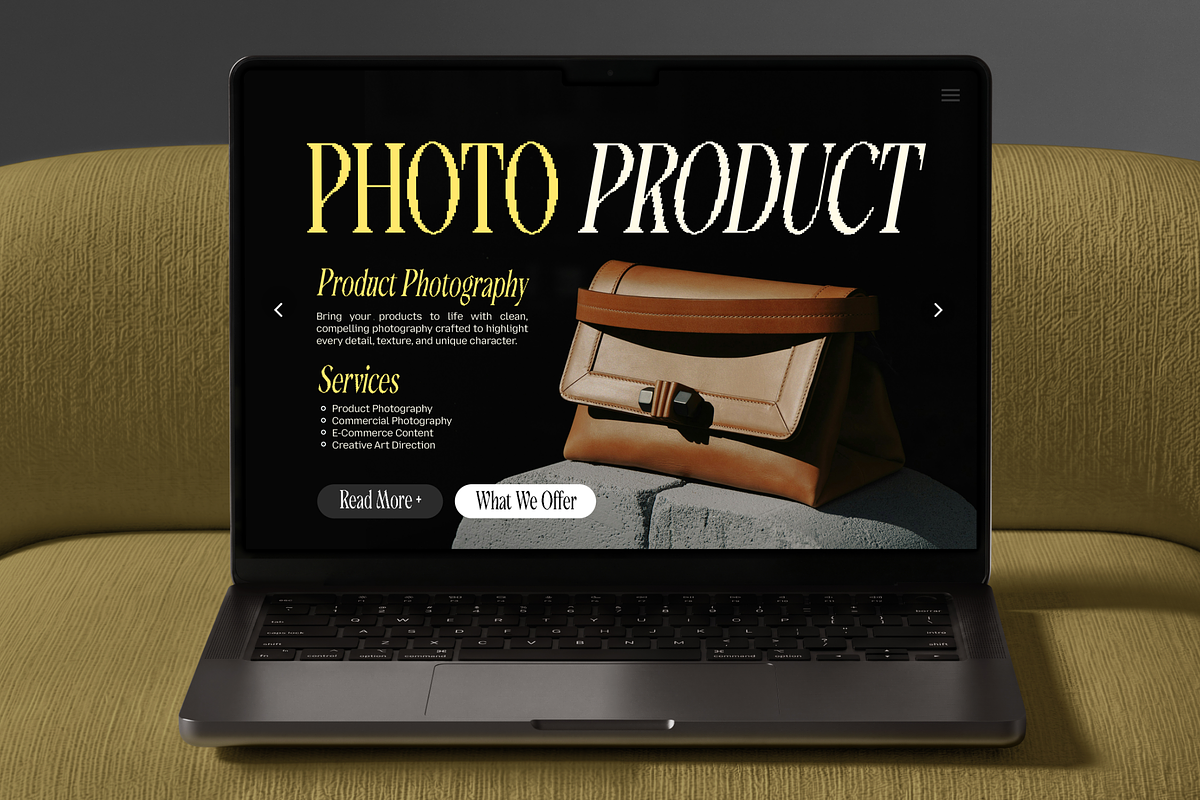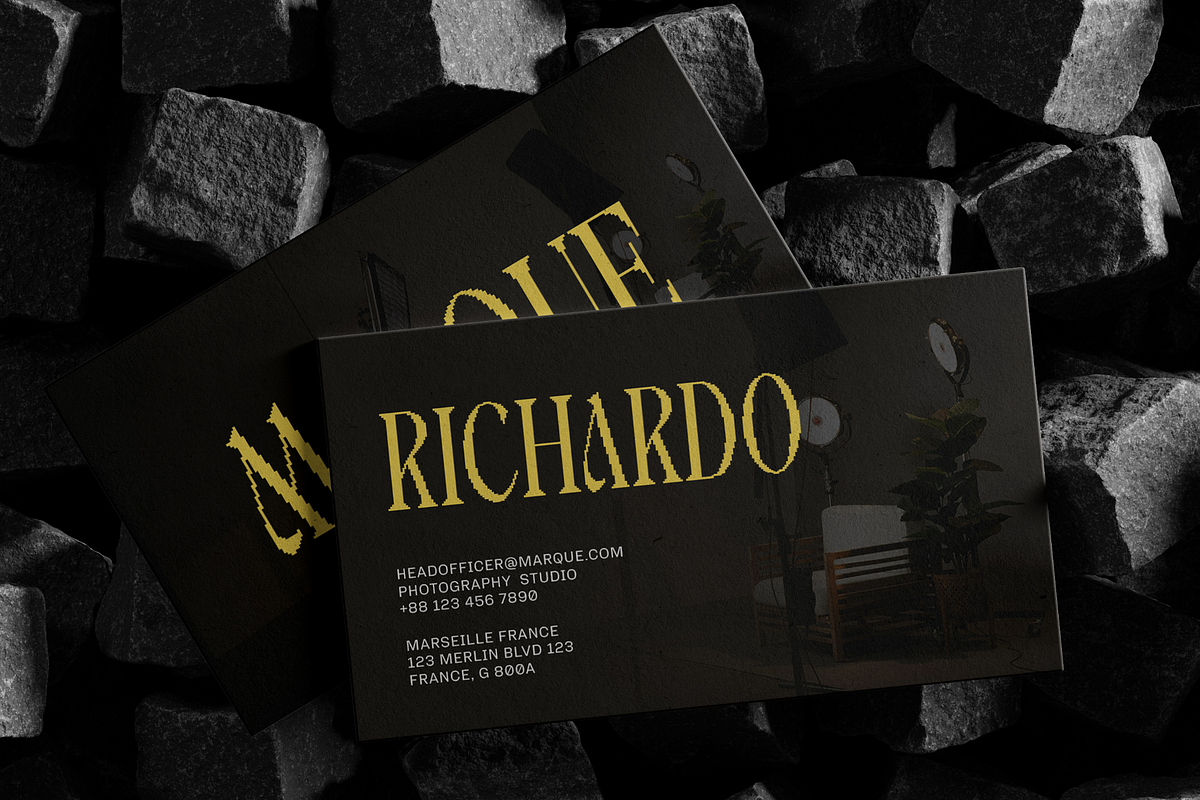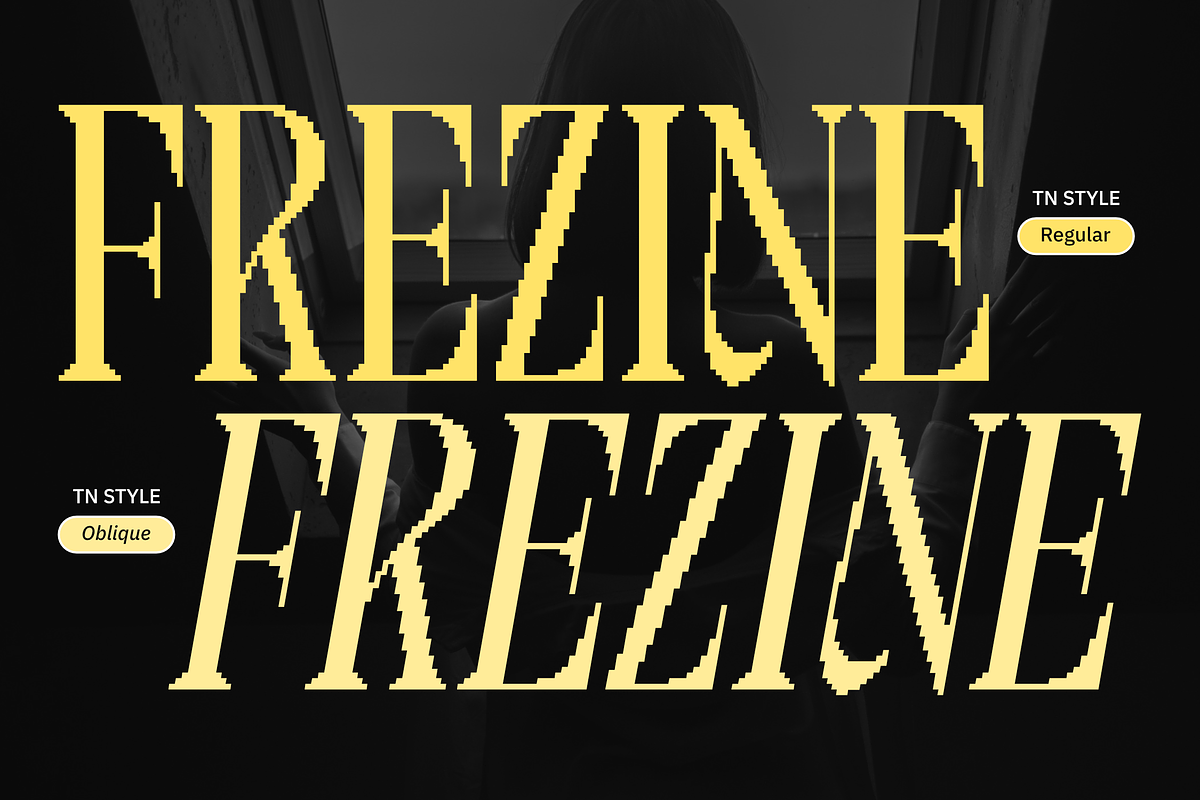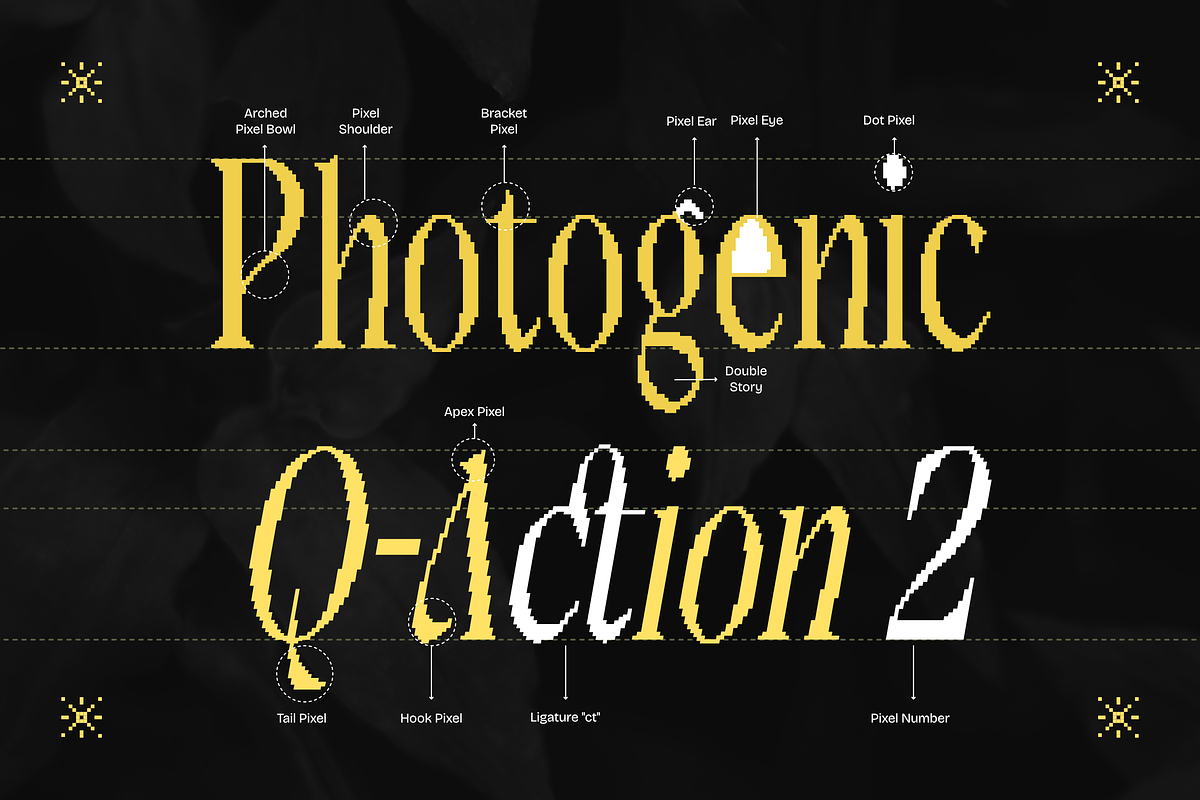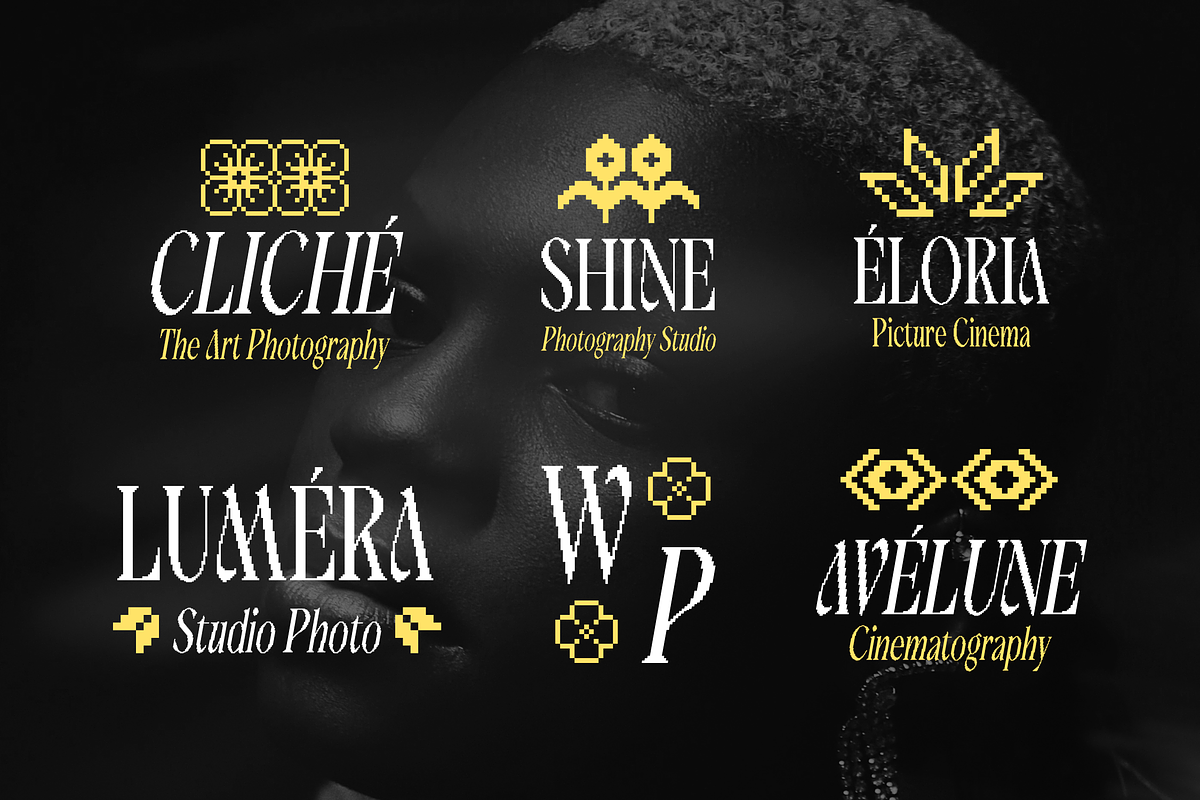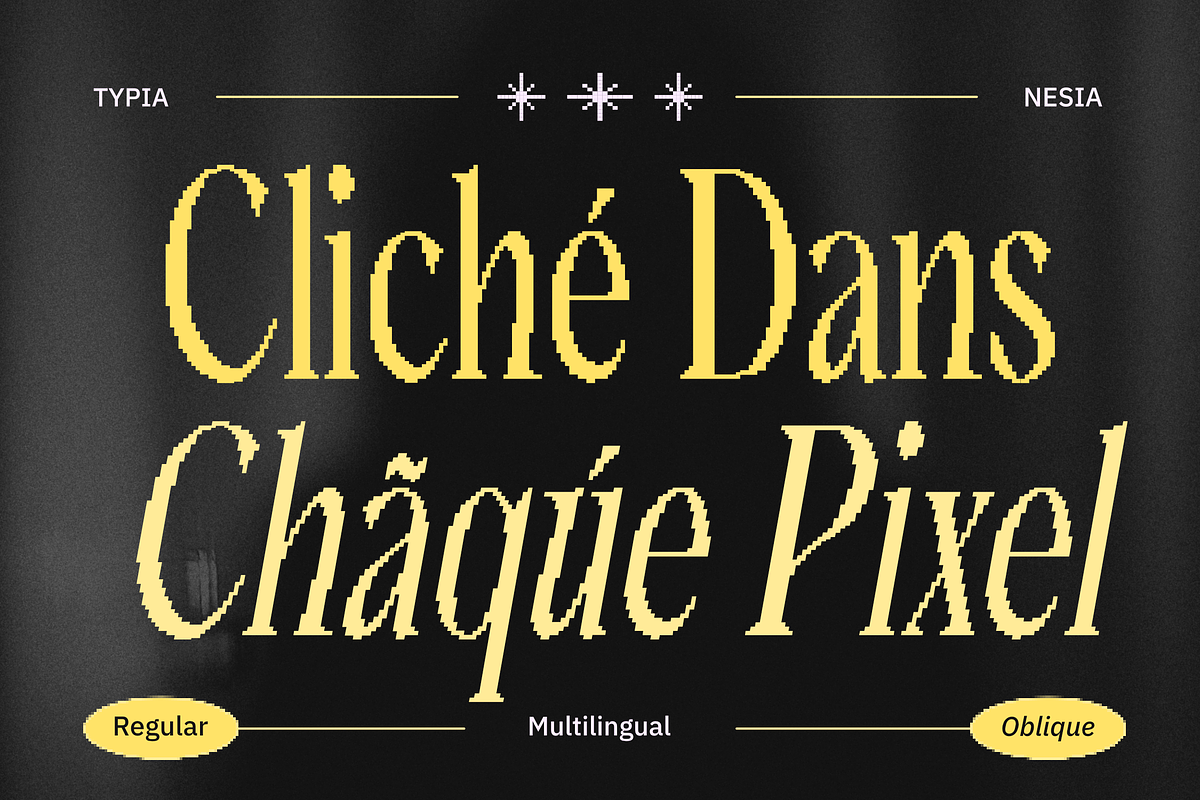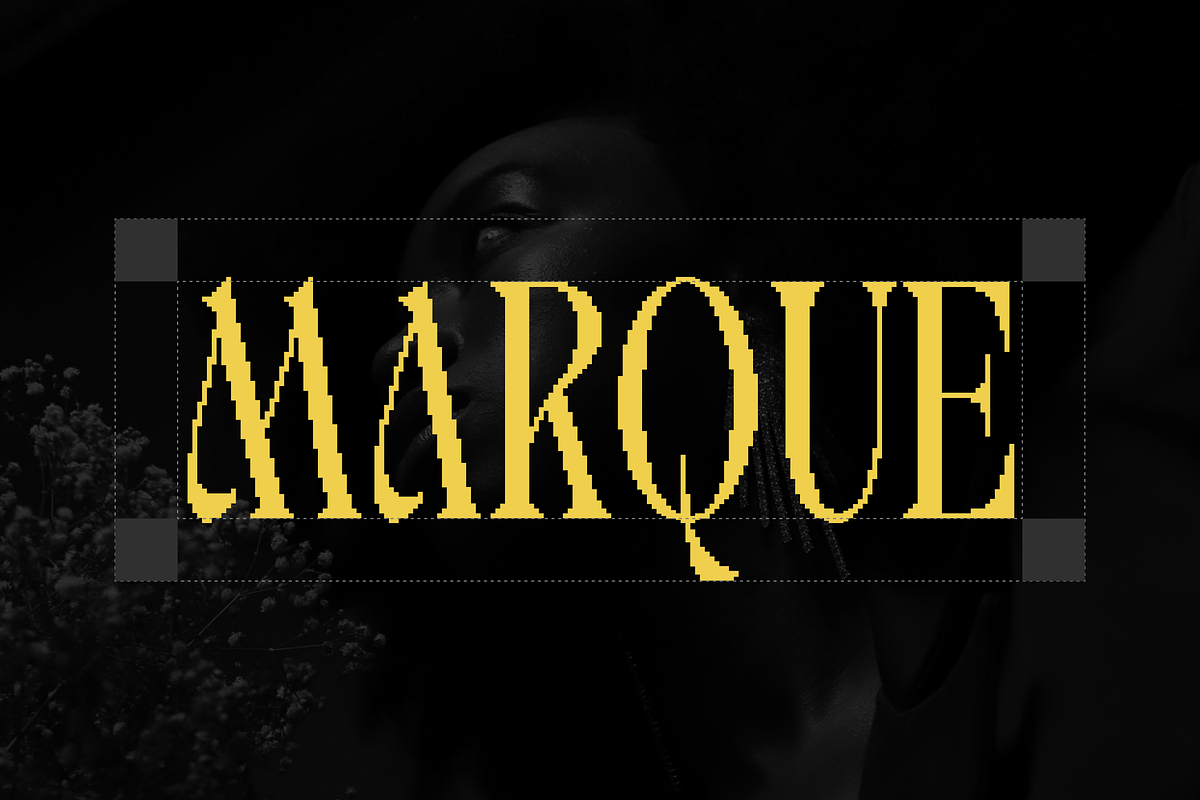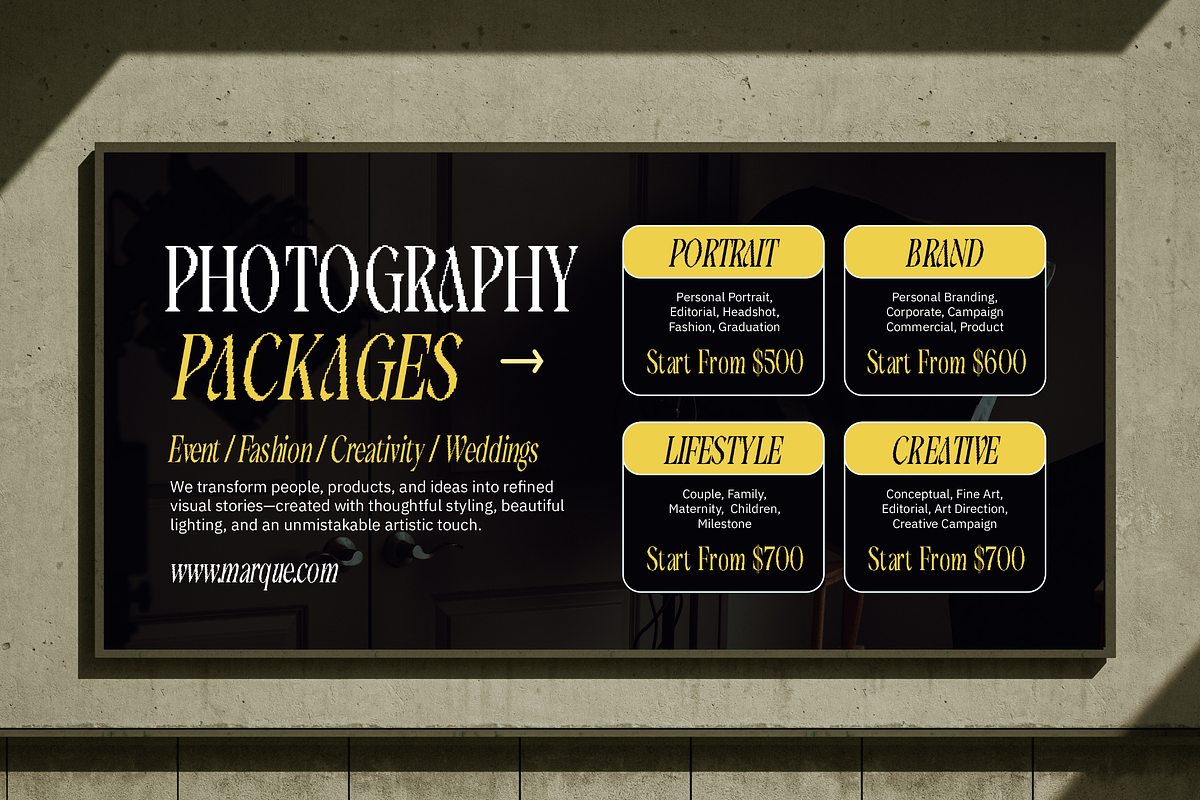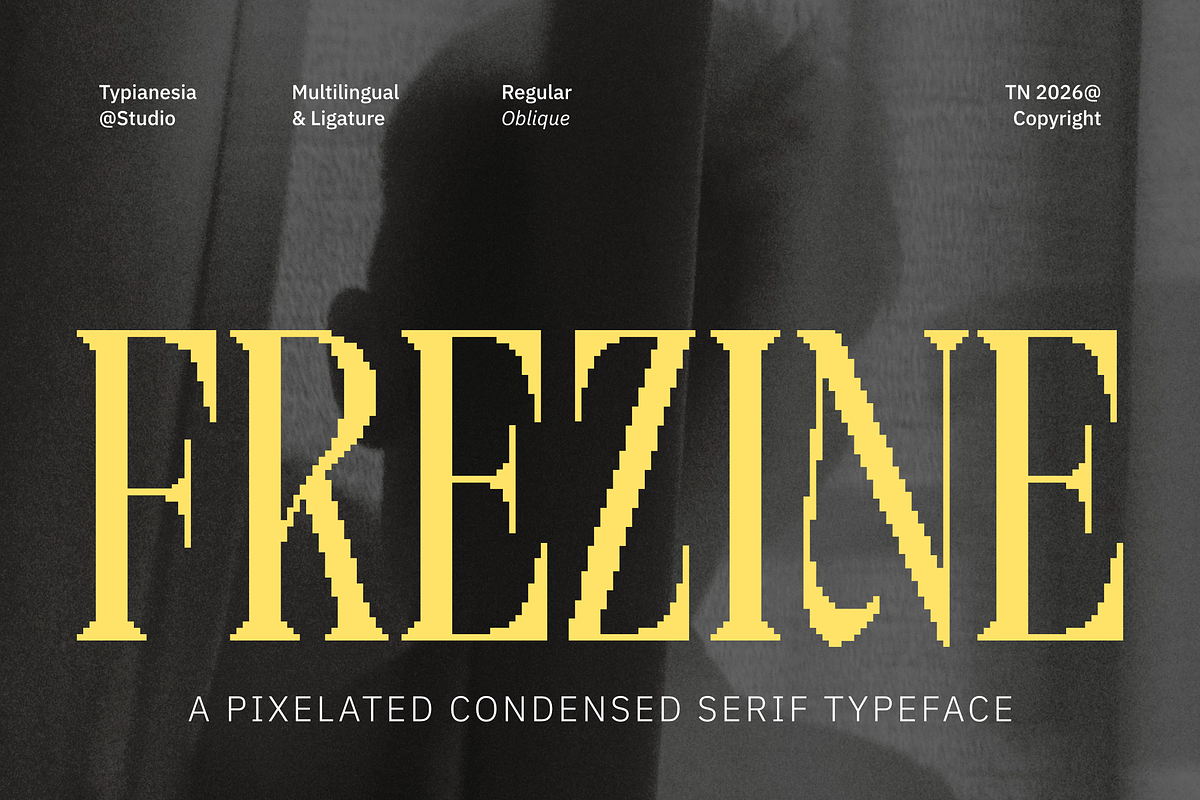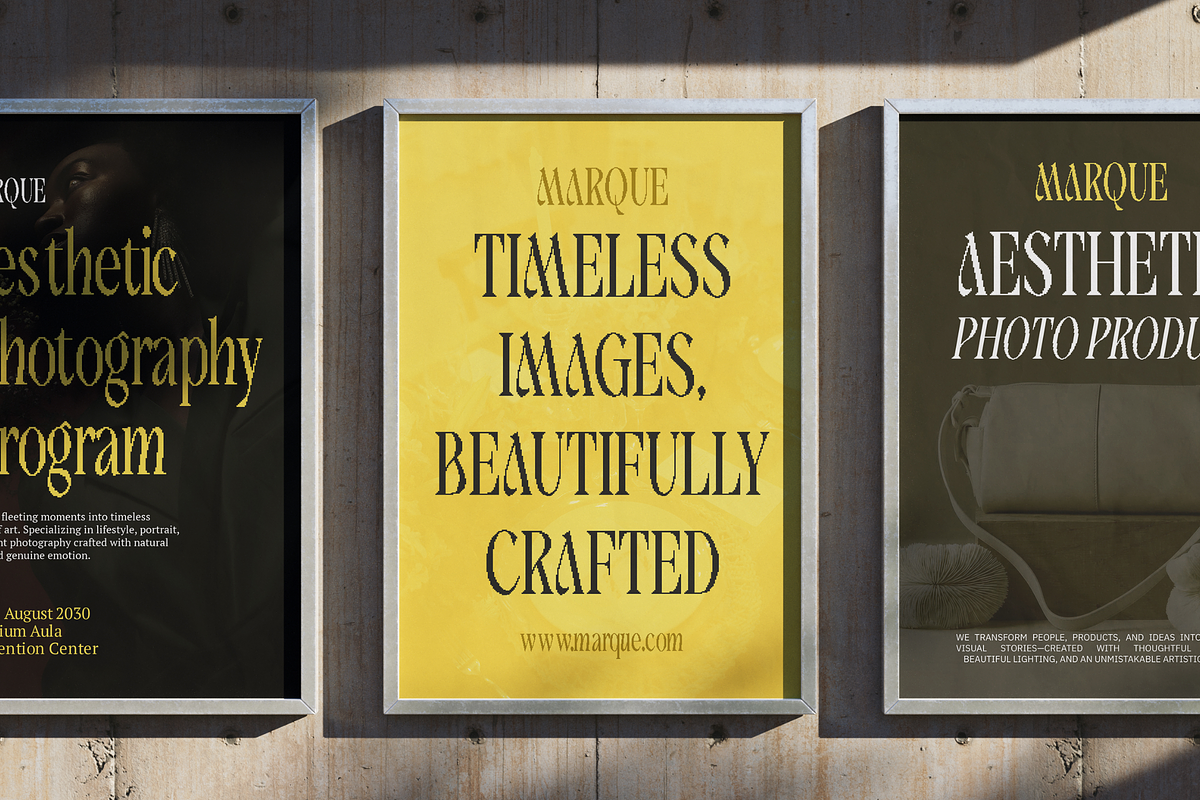
Frezine - Pixelated Condensed Serif
Frezine is a high-contrast pixelated condensed serif crafted for fashion labels, magazine editorial layouts, and tech-driven visual identities looking to blend classic elegance with a retro digital edge.
Perfect for magazine mastheads, editorial layouts, luxury tech packaging, music album art, and visual identity projects. It features Regular and Oblique styles, making it versatile and easy to use across a wide range of design needs.
Give your high class product and digital branding projects a bold, timeless edge with Frezine today!